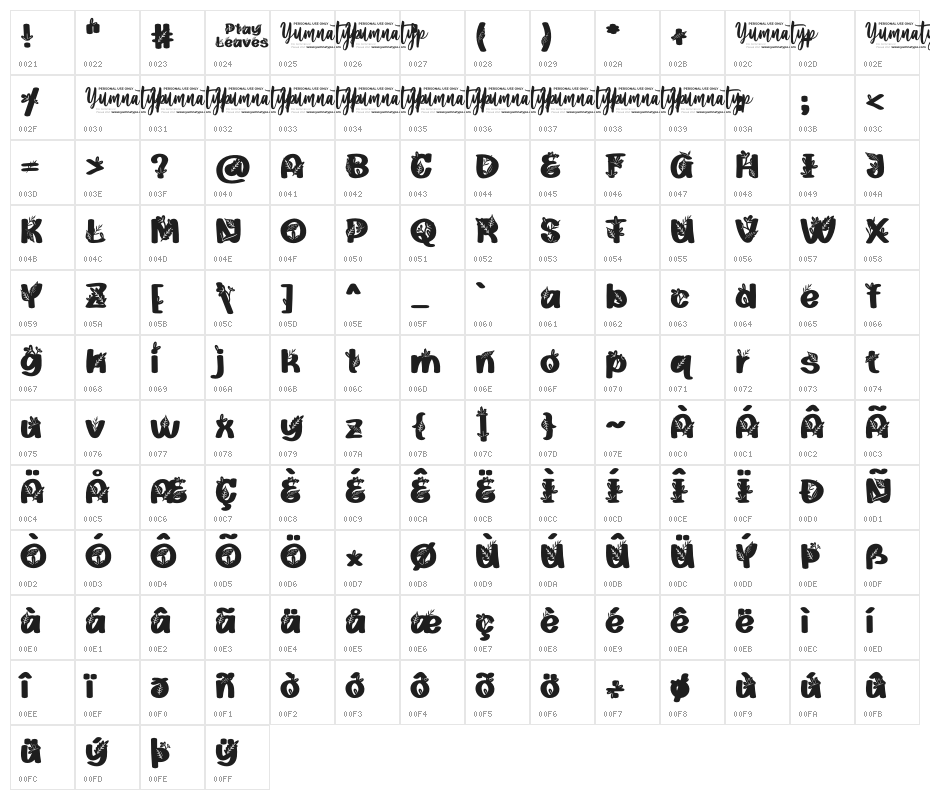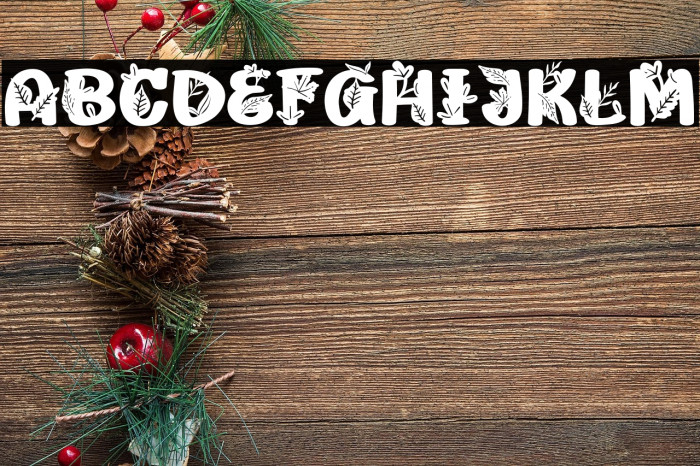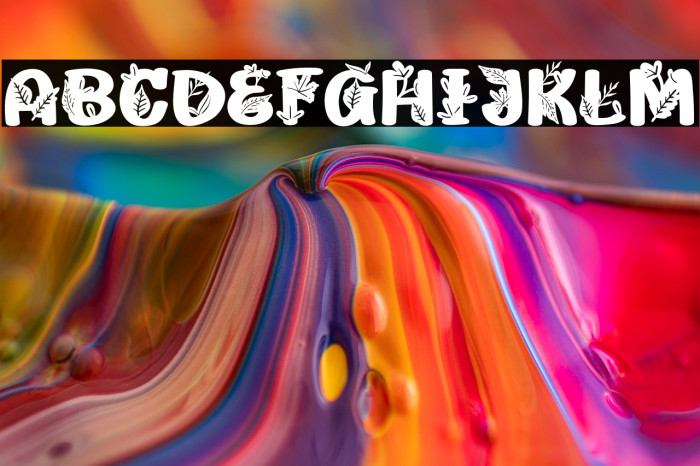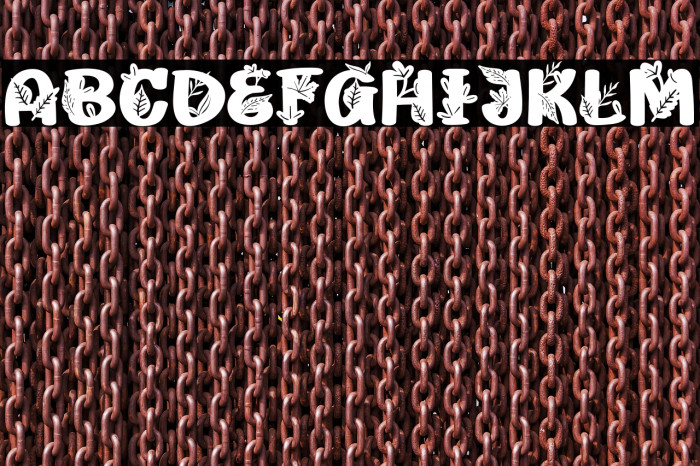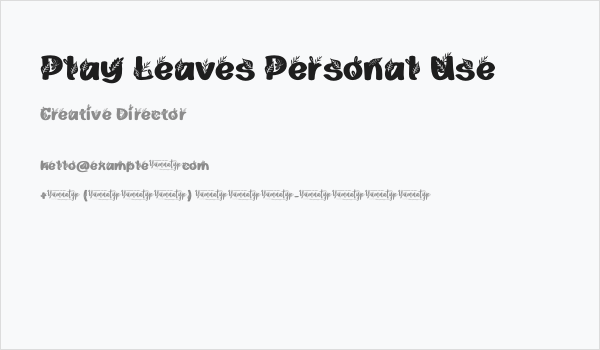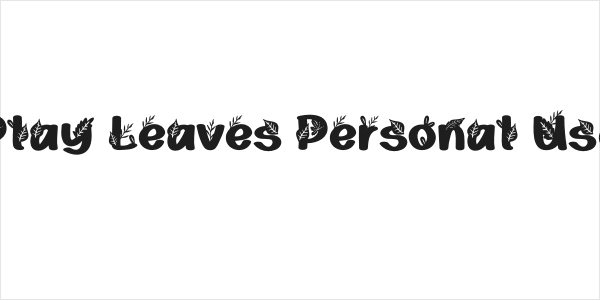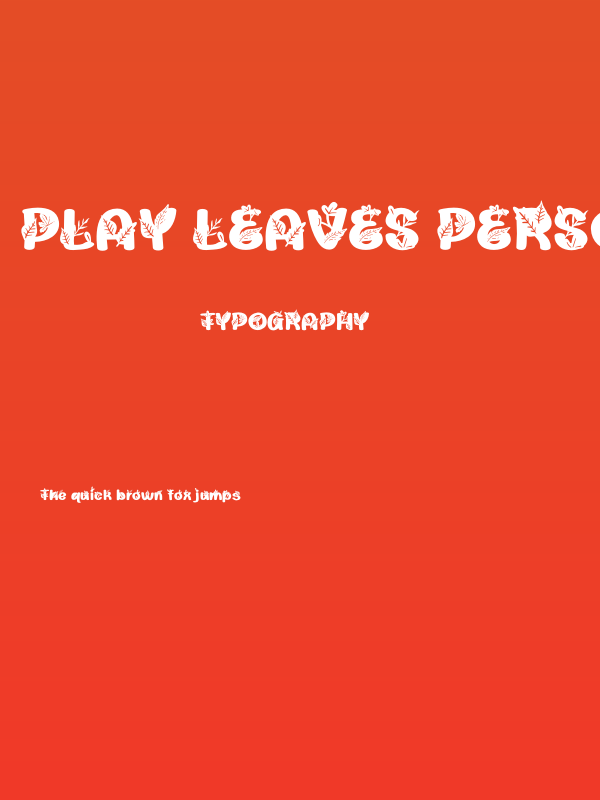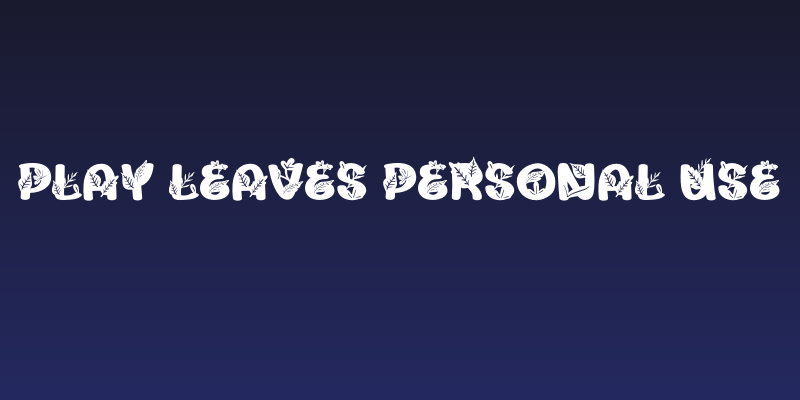
Play Leaves Personal Use Font
Play Leaves Personal Use Description
This playful and decorative font features bold, whimsical characters adorned with leaf motifs, giving it a nature-inspired and organic feel. The uppercase and lowercase letters are creatively designed with various leaf shapes integrated into the strokes, adding a unique and artistic touch. The numbers and special characters maintain this theme, ensuring a cohesive look across all glyphs. The font's bold weight and decorative elements make it ideal for projects that require a fun and lively aesthetic.
| Proposed Projects | Ideal for eco-friendly branding, children's book covers, nature-themed event posters, and creative packaging designs. |